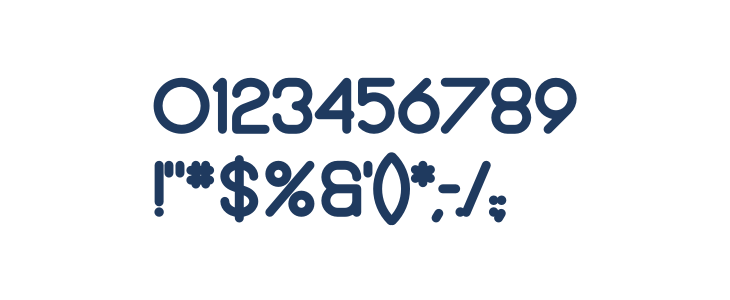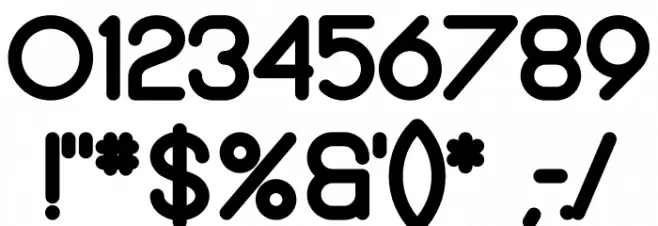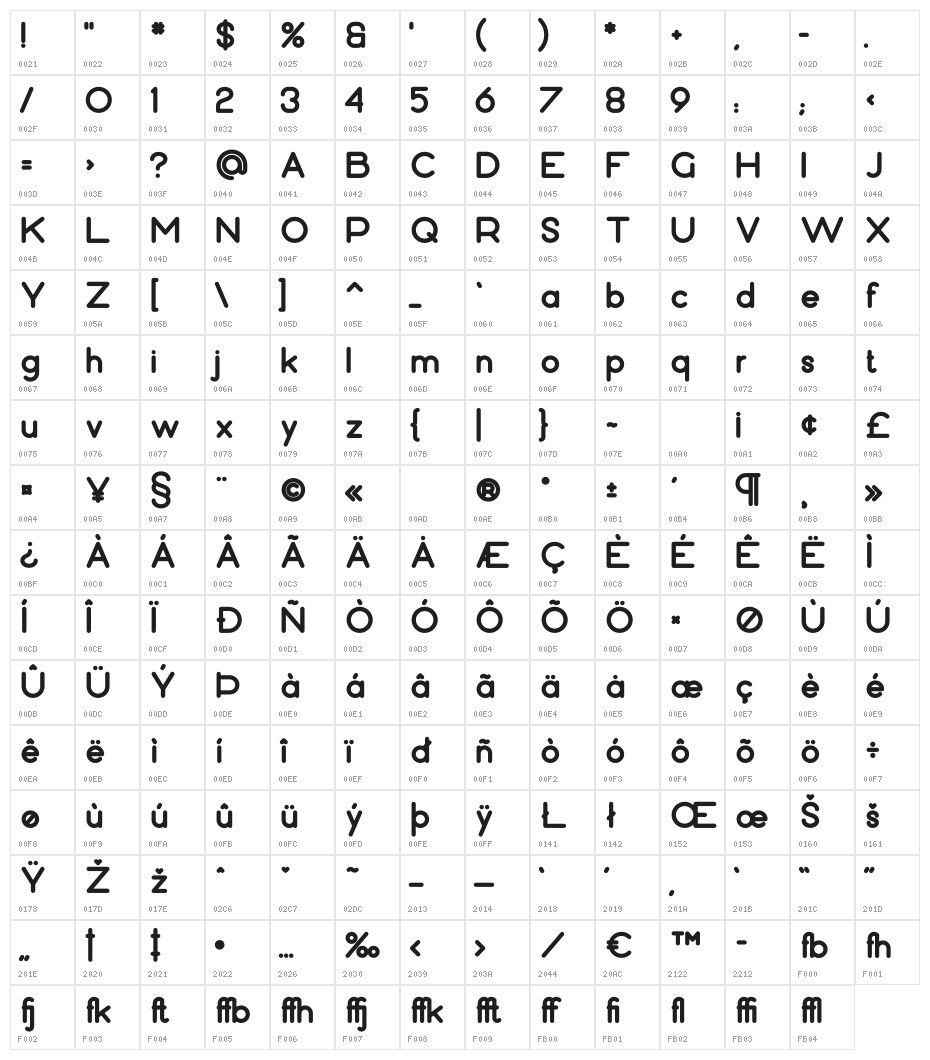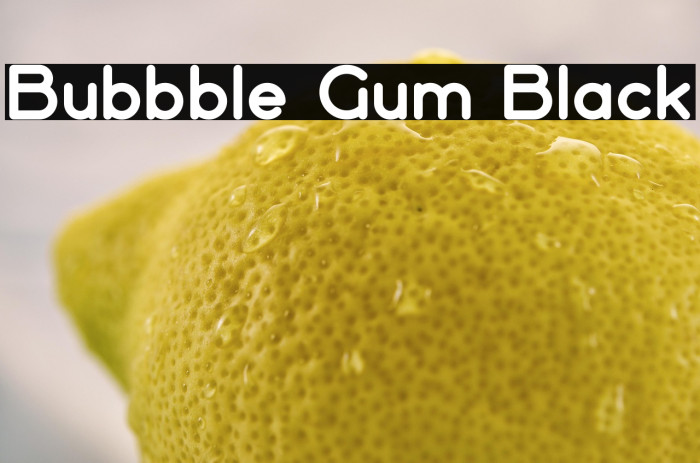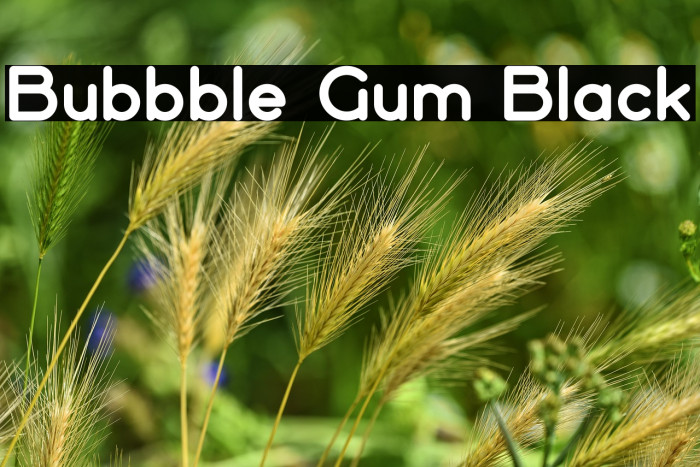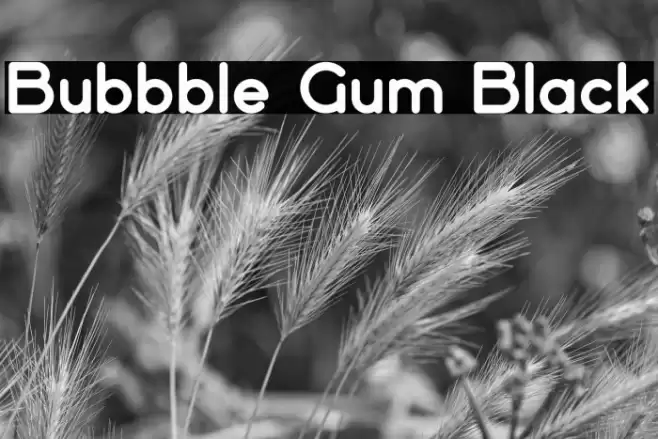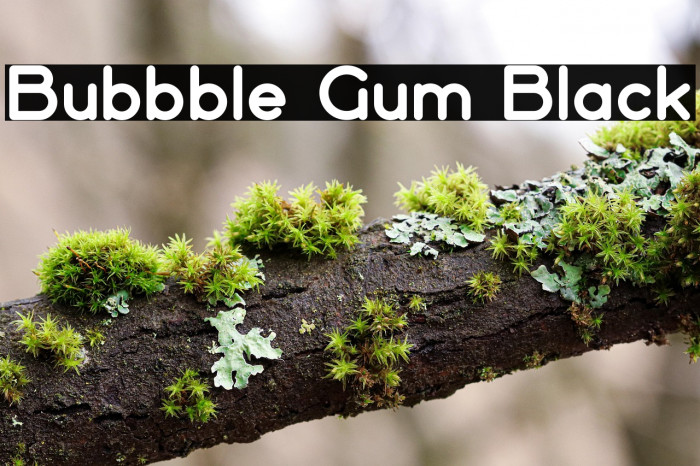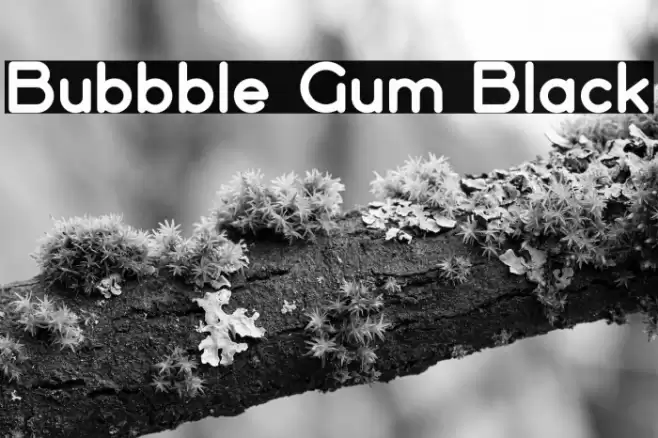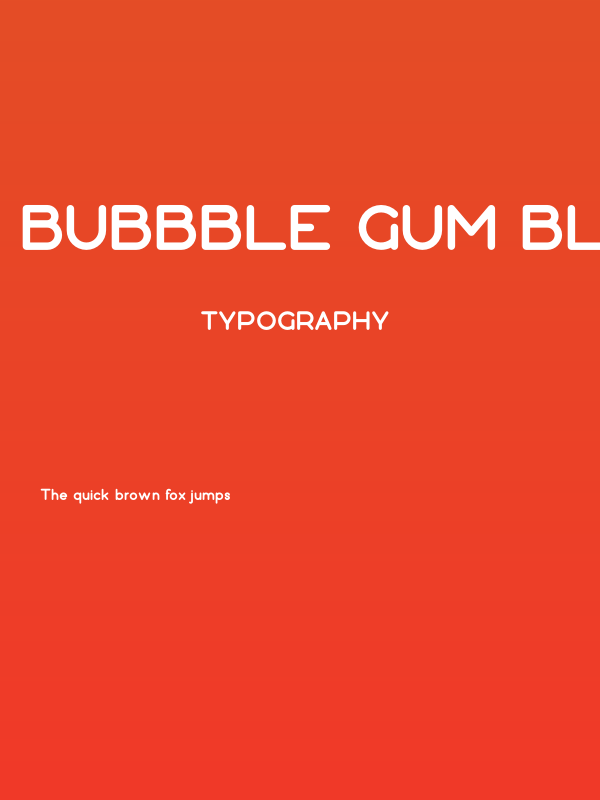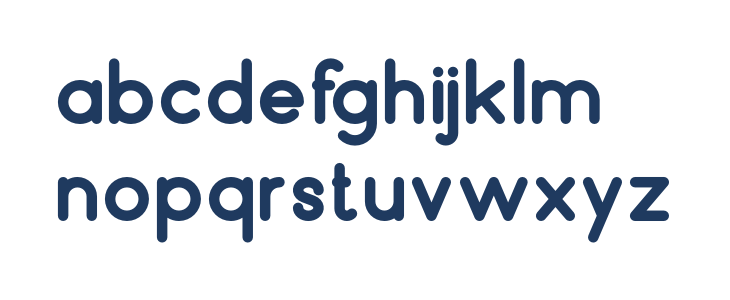
Bubbble Gum Black Font
Bubbble Gum Black Description
This playful and bold font features rounded edges and a bubbly appearance, reminiscent of fun and youthful designs. The characters are evenly spaced, with a consistent stroke width that gives it a cohesive and modern look. The uppercase and lowercase letters maintain a uniform style, while the numerals and special characters complement the overall aesthetic. Its smooth curves and friendly demeanor make it ideal for projects that aim to convey a sense of joy and creativity.